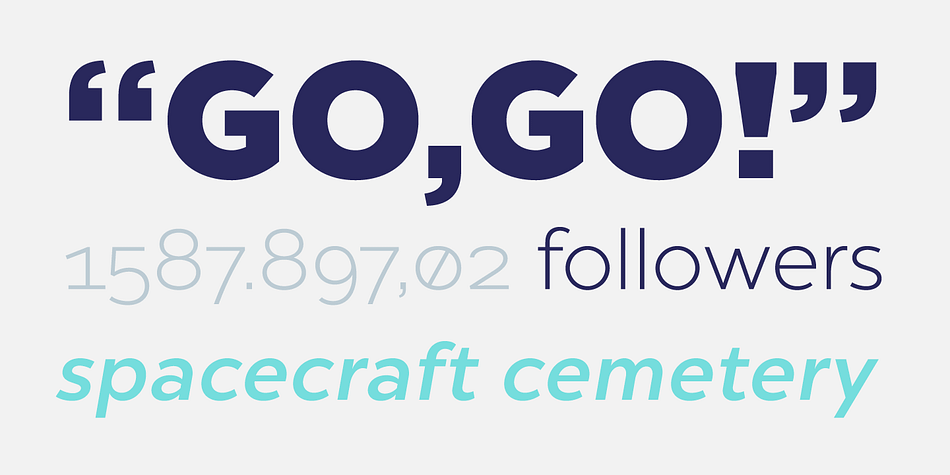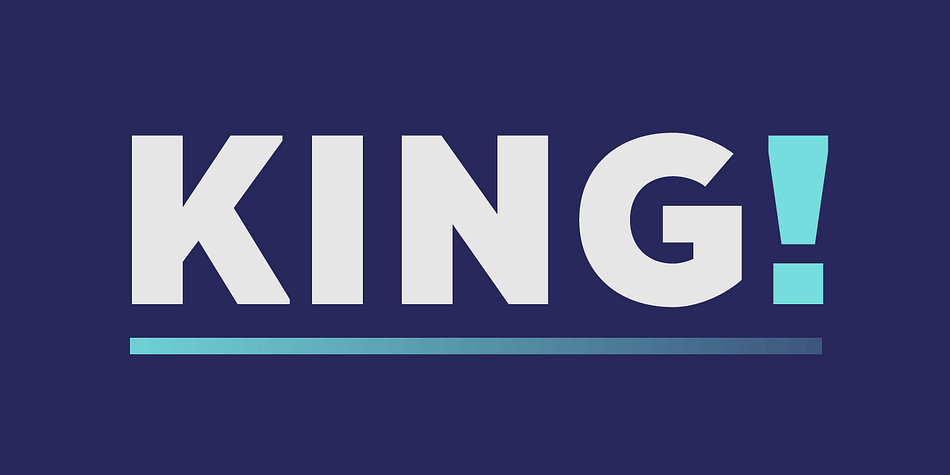
Chronica Pro
Chronica Pro is a sans serif font family. This typeface has twenty styles and was published by Mostardesign.
Chronica Pro is a new contemporary font family focusing on balance and quality for high professional use. Designed with a lot of attention to details and versatility, Chronica Pro could satisfy all kinds of demand such as editorial design, brand creation, graphic design, signage as well as on screen, apps, web sites, ebooks, etc. With its 18 fonts. Chronica Pro can be define as a humanist spirit in a geometric body and support an international communication like Central, western and Eastern European languages.
This typeface contains professional OpenType : alternate letters, case sensitive forms, proportional figures, tabular figures, numerators, superscripts, denominators, scientific inferiors, subscript, ordinals, fractions, arrows, ligatures. Chronica Pro has been also designed with a high level of Pro kerning to meet complex editorial design.